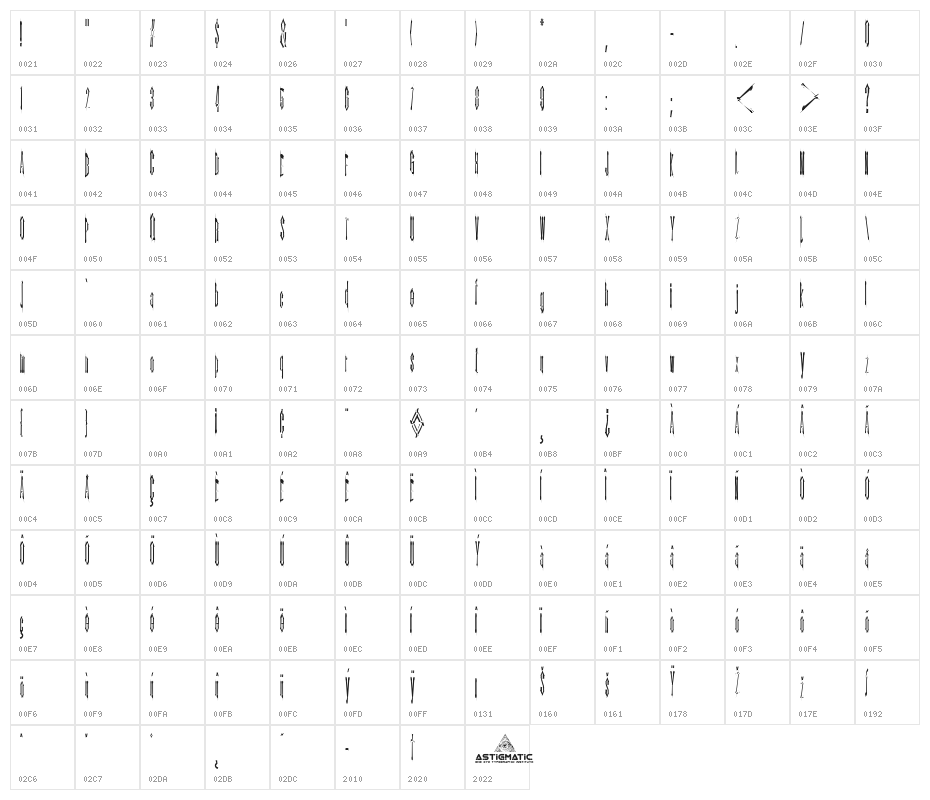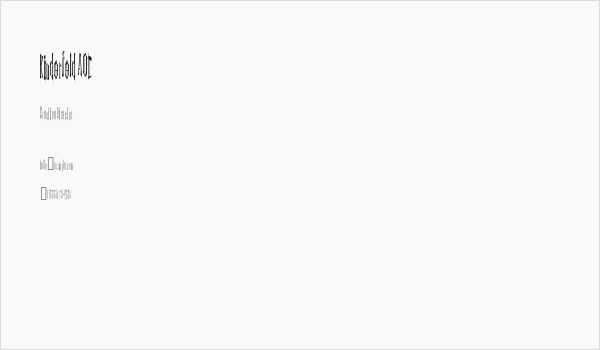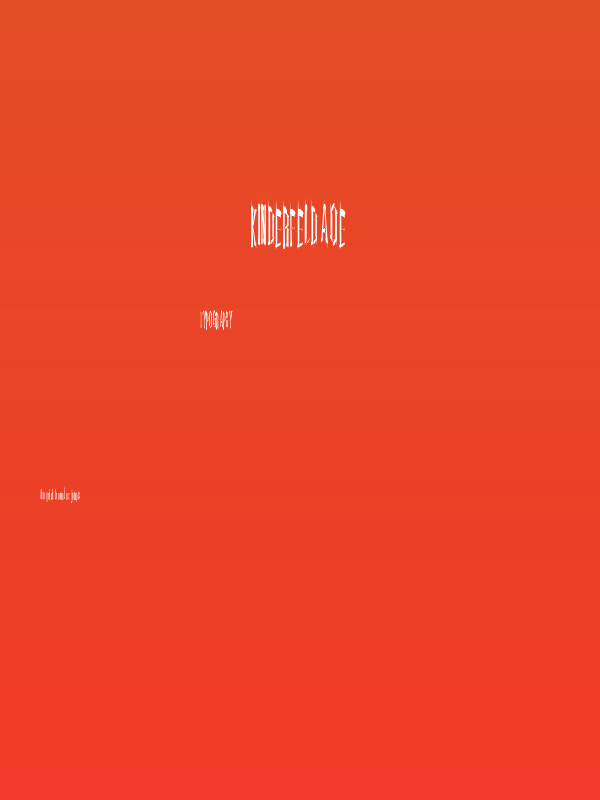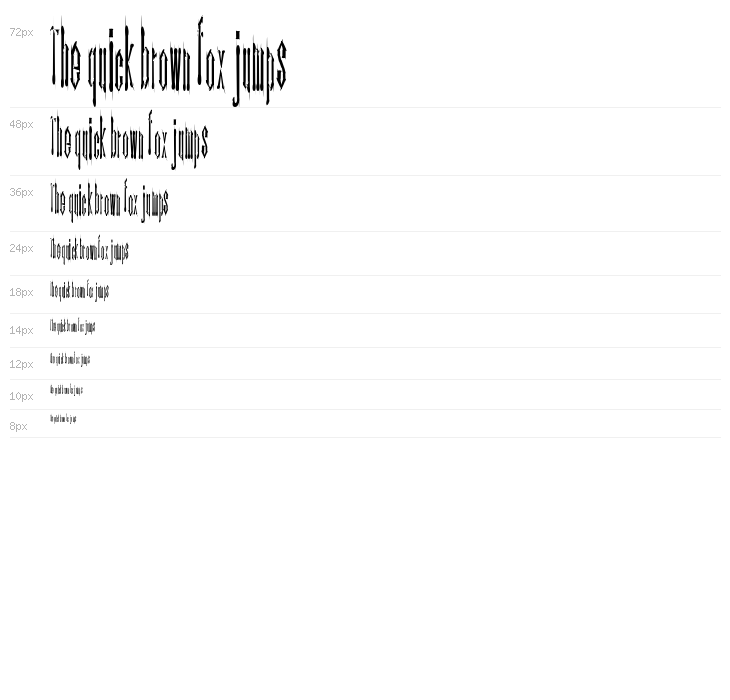
Kinderfeld AOE Font
Kinderfeld AOE Description
This font features a highly decorative and gothic style, characterized by sharp, elongated strokes and a distressed appearance. The uppercase letters are tall and narrow, with pointed serifs and intricate detailing that gives them a dramatic flair. The lowercase letters maintain the same sharpness and vertical emphasis, creating a cohesive look throughout the alphabet. Numbers and special characters follow the same aesthetic, ensuring consistency across all glyphs. The overall design evokes a sense of mystery and edginess, making it suitable for projects that require a bold and unconventional typeface.
| Overall Style | Gothic, Decorative |
| Proposed Projects | Ideal for horror-themed designs, album covers, posters, and any project needing a dramatic, gothic touch. |